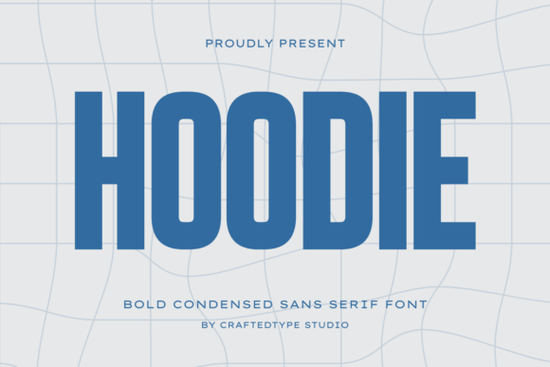
When you're designing streetwear graphics, gym apparel, or bold social media posts, the typeface you choose sets the entire mood. Hoodie Font is a bold condensed sans serif built specifically for high-impact, urban-style visuals. Its tall, compact letterforms and thick strokes give every word a strong, industrial presence that works across apparel, branding, and digital content. If you sell on POD platforms or run a small clothing brand, this font deserves a closer look.
What Makes Hoodie Font Stand Out From Other Bold Sans Serifs?
Not every bold font carries the same energy. Some feel playful, others feel corporate. Hoodie Font sits in a specific lane aggressive, athletic, and commanding. The condensed proportions mean you can fit more text into tight spaces without losing readability. This matters when you're working on:
- Sports jerseys where player names and numbers need to pop from a distance
- Hoodie and sweatshirt designs that sell on platforms like Merch by Amazon or Redbubble
- Gym and fitness branding that needs to feel powerful and motivated
- Cinematic title cards and movie poster concepts
- Social media graphics where attention spans are short and visuals need to grab fast
Who Should Use a Font Like This?
If you fall into any of these categories, Hoodie Font is worth considering:
- Print-on-demand sellers designing apparel for streetwear, fitness, or sports niches
- Small business owners building a brand identity that feels bold and modern
- Graphic designers working on posters, flyers, or YouTube thumbnails
- Crafters creating custom SVG projects, vinyl decals, or sublimation prints
- Social media managers who need scroll-stopping visuals for Instagram or TikTok
The condensed style makes it especially useful when you're working with limited design space think sleeve prints, hat embroidery mockups, or narrow banner ads. You get that bold, packed look without needing to shrink the font size.
How Does It Pair With Other Fonts?
A strong display font like Hoodie works best when paired with something lighter for body text or subheadings. For example, you could use a clean modern sans serif for supporting text to create contrast. The display font handles the attention-grabbing work while the secondary font keeps longer lines readable.
If you're designing social media content specifically, mixing Hoodie with a more casual or handwritten style like what you'd find with a versatile story font pairing can give your layouts a layered, professional feel without overcomplicating things.
What Design Projects Work Best With Hoodie Font?
Based on its characteristics, here are some specific use cases where this font really fits:
- Streetwear apparel lines Think oversized hoodie prints, oversized tees, and jogger graphics. The bold condensed shape matches the aesthetic perfectly.
- Sports team branding Team logos, roster posters, and event banners all benefit from a typeface that looks strong at any size.
- Podcast and YouTube thumbnails Large, punchy text that reads clearly even as a small preview image.
- Event promotions Concert flyers, gym competitions, or local sports tournaments.
- Product packaging Especially for brands in the fitness, outdoor, or action sports space.
Quick Tips Before You Start Designing
- Use proper spacing. Condensed fonts can feel cramped if your tracking is too tight. Give the letters a little room to breathe.
- Stick to short phrases. Bold condensed fonts shine on headlines and titles, not paragraph text.
- Test at small sizes. What looks great on a 27-inch screen might lose detail on a phone thumbnail.